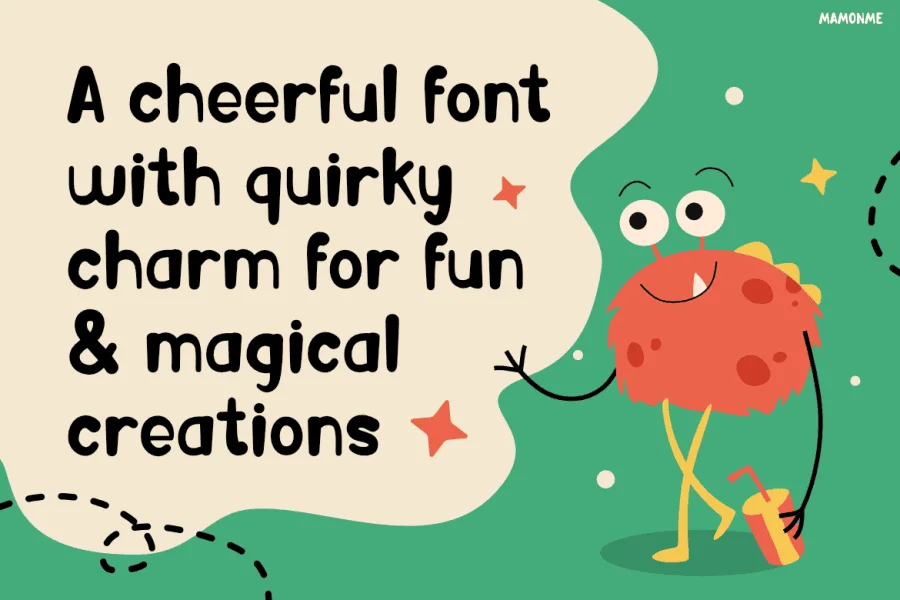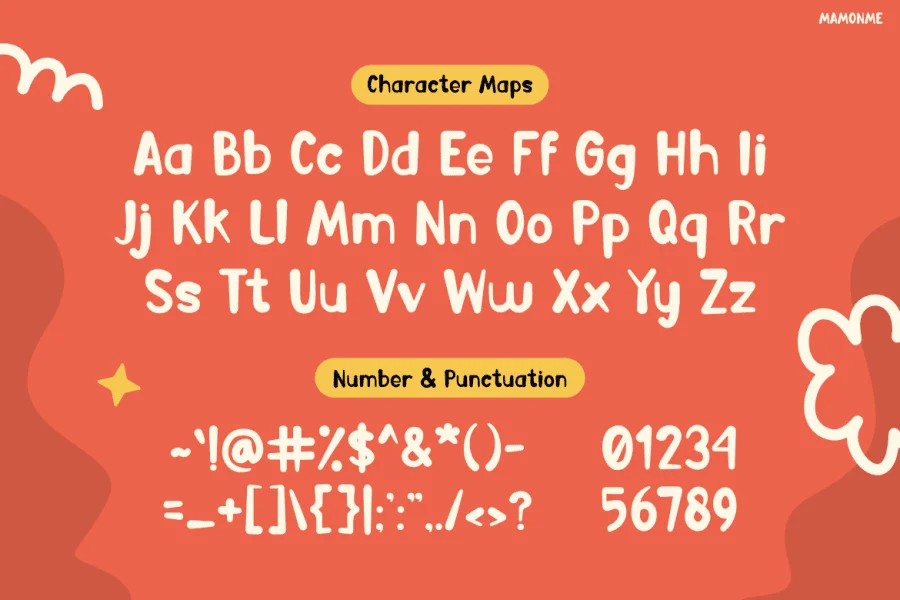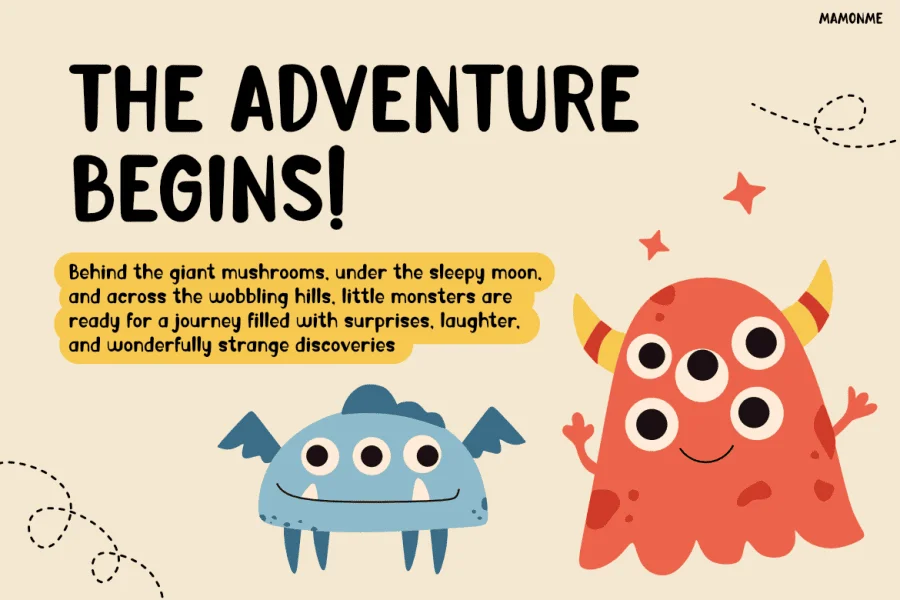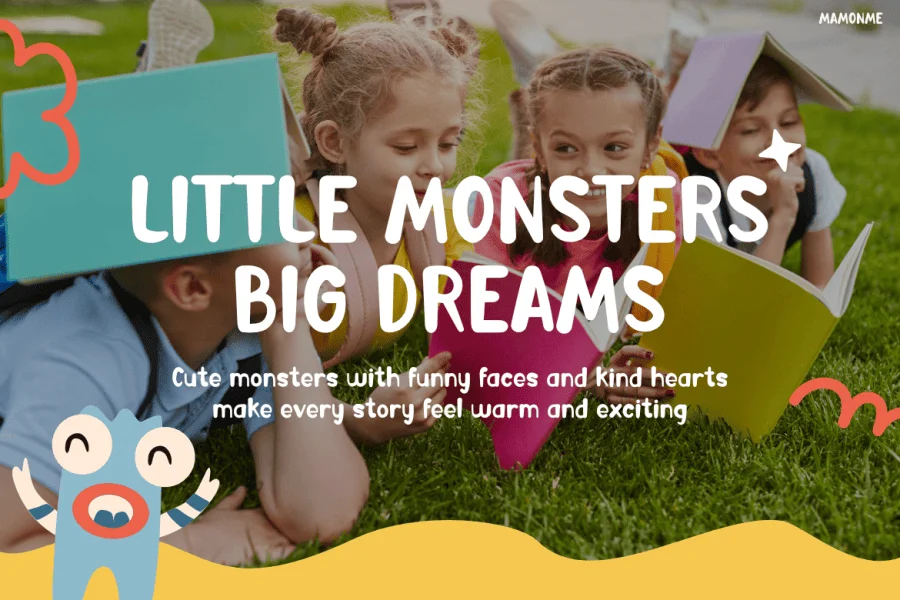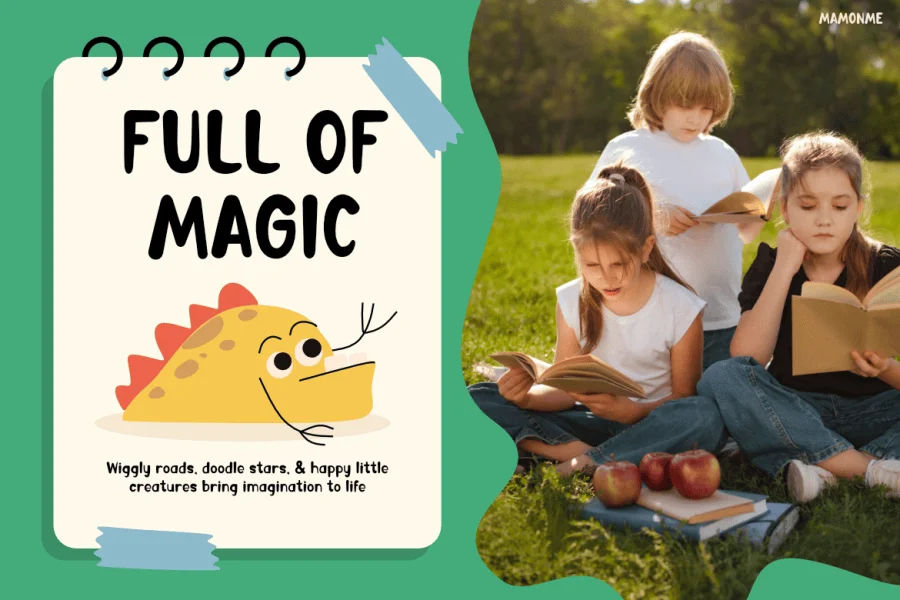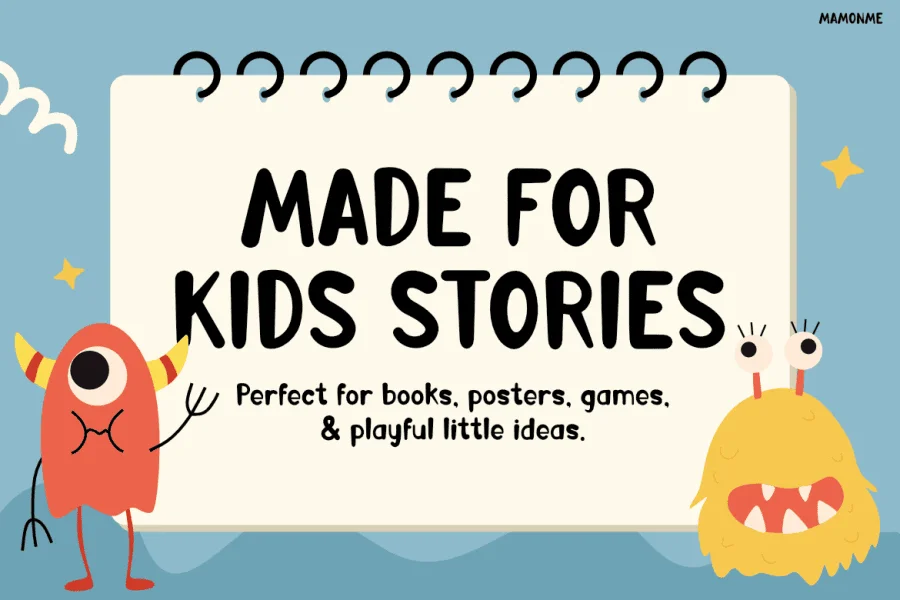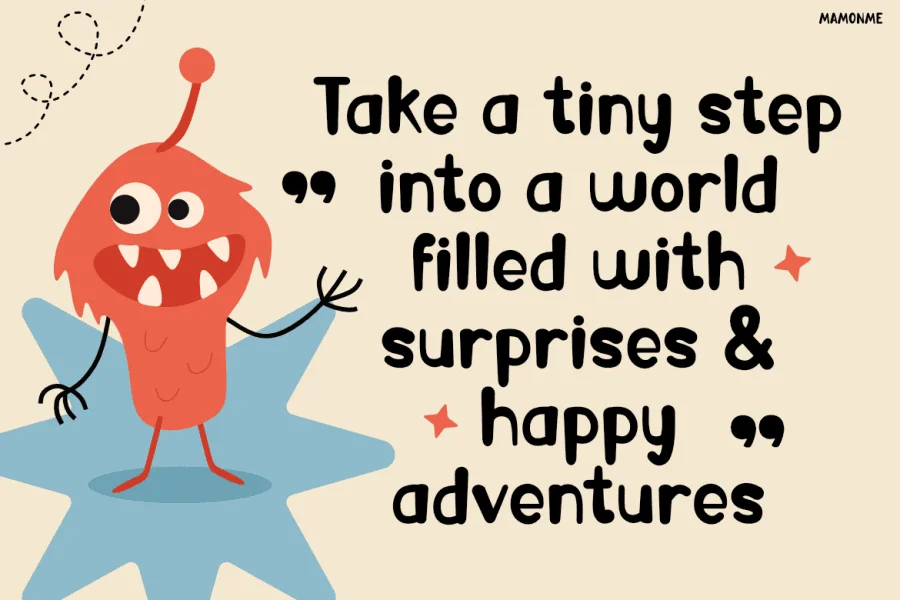
Mamonme is a fun, quirky display sans-serif typeface designed with a lively hand-drawn energy. It features a medium contrast construction, showing a clear, structural variation between its thick downstrokes and thinner horizontal curves. The letterforms are slightly condensed with softly rounded terminals that give the alphabet a friendly, approachable texture. Its organic, animated personality is defined by a casual rhythm, where playful stem alignments and soft, irregular bowls evoke a cheerful, hand-crafted feel.
This typeface is highly suited for children's books, school posters, and toy packaging, particularly those featuring whimsical illustrations and cute monster characters. Its friendly, imaginative demeanor makes it an excellent choice for bold headers, playful game interfaces, animated title cards, and any creative branding project aimed at capturing a sense of youthful wonder and excitement.